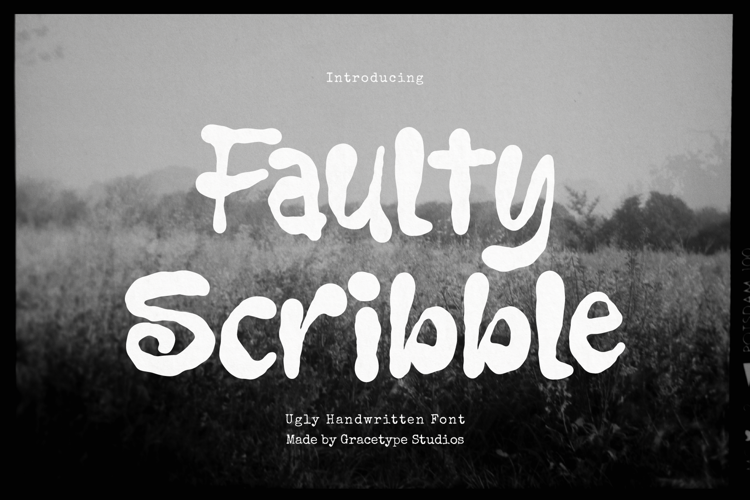
Faulty Scribble Font
Faulty Scribble | Ugly Handwritten Font, is suitable for any projects such as: logos, branding projects, homeware designs, product packaging, mugs, quotes, posters, shopping bags, t-shirts, book covers, name card, invitation cards, greeting cards, label, photography, watermark, special events, and all your other lovely projects that need a Hand Drawn f taste.